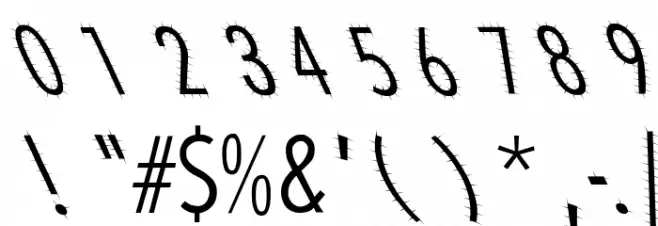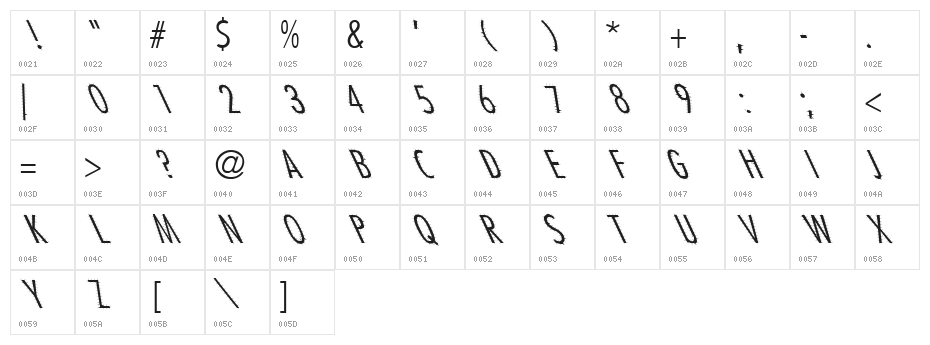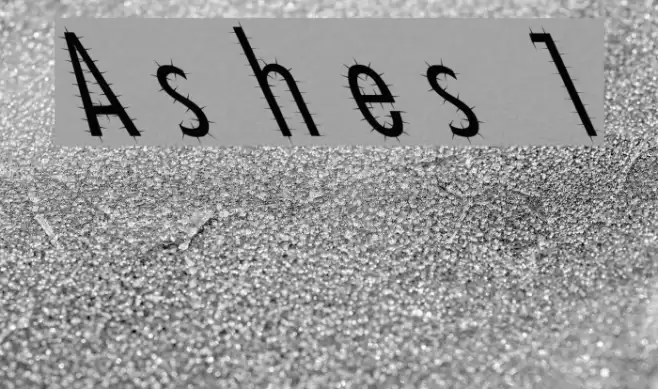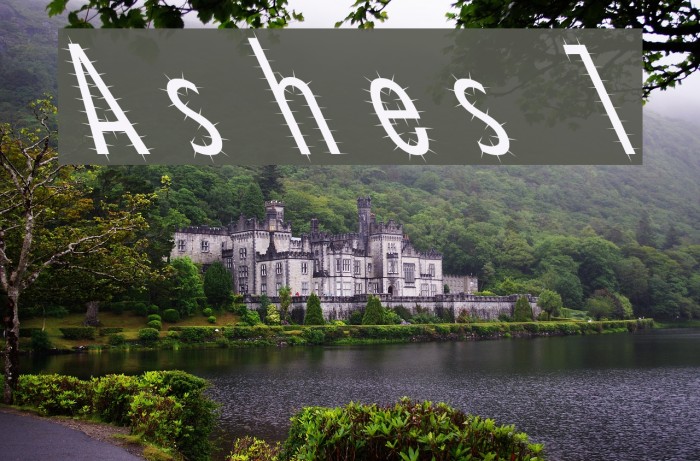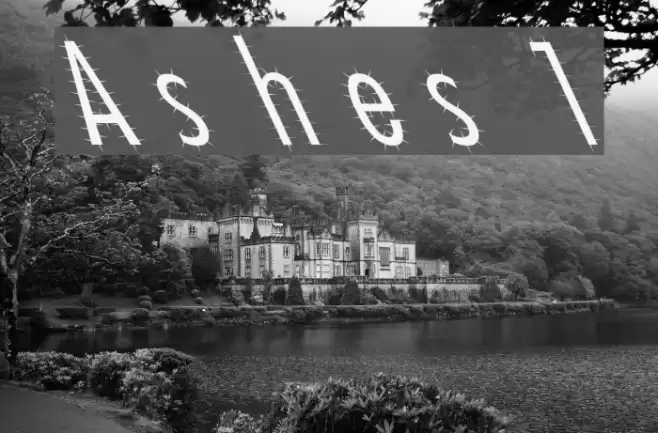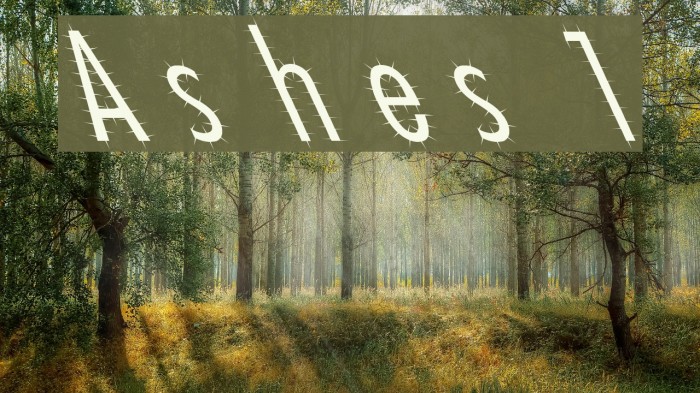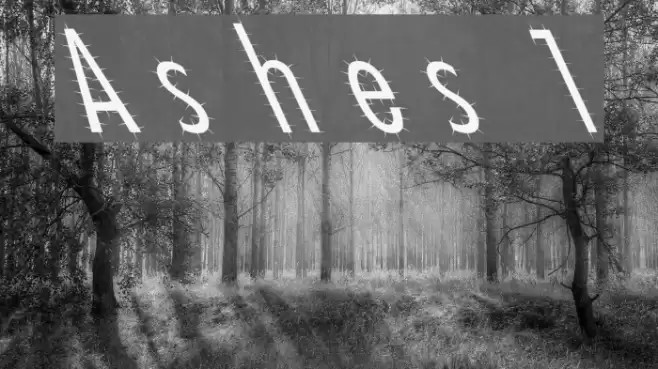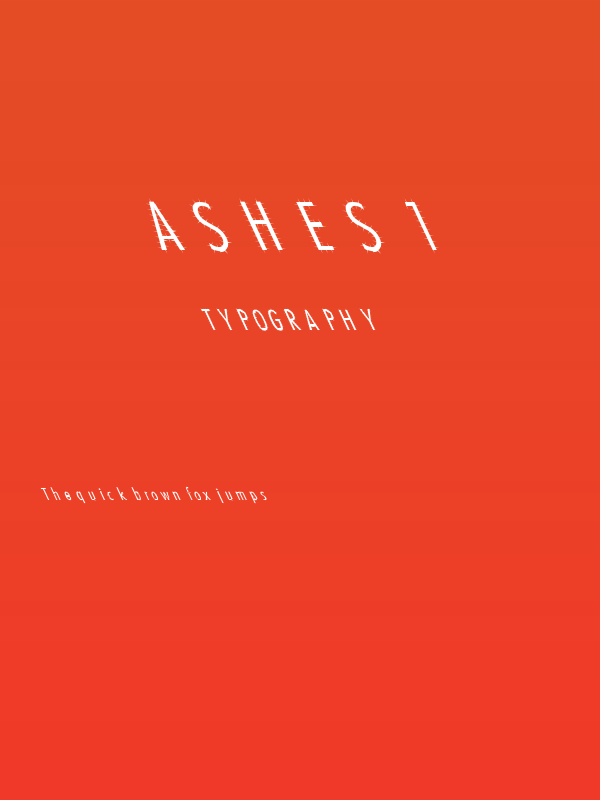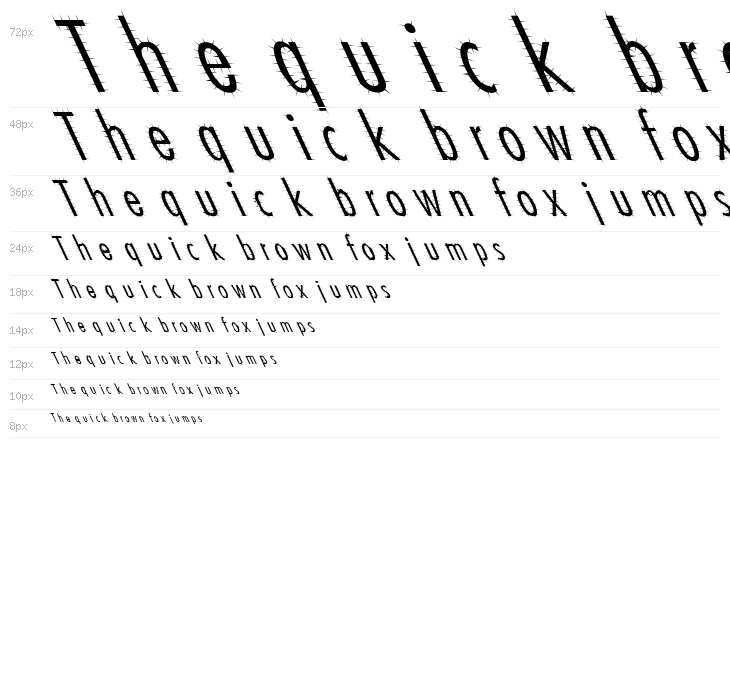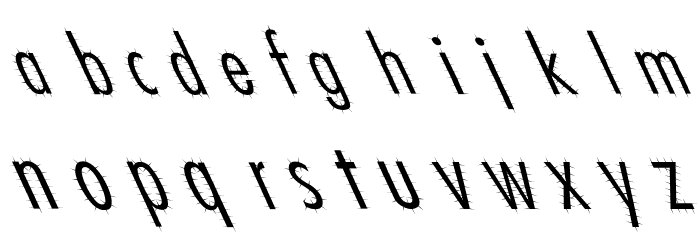
Ashes 1 Font
Ashes 1 Description
This font features a unique and edgy design with a distinct slashed effect across each character, giving it a dynamic and slightly chaotic appearance. The uppercase and lowercase letters maintain a consistent style, with sharp angles and a sense of movement. The numerals and special characters follow the same aesthetic, ensuring a cohesive look across all text. This font's unconventional style makes it stand out, offering a modern twist with a hint of rebellion. The overall impression is bold and striking, making it suitable for projects that require a strong visual impact.
| Overall Style | Modern, Edgy |
| Proposed Projects | Ideal for music album covers, edgy branding, posters, and modern art projects. |